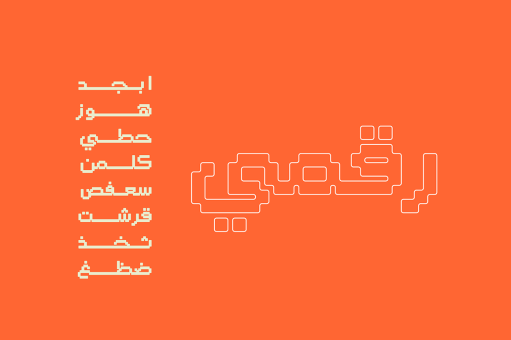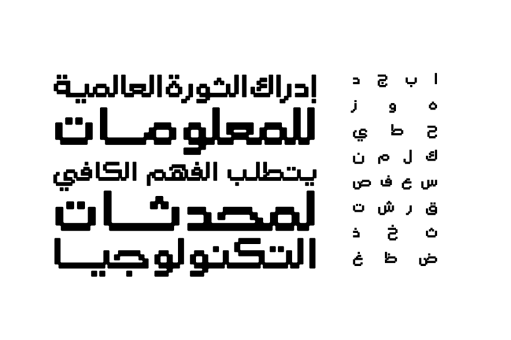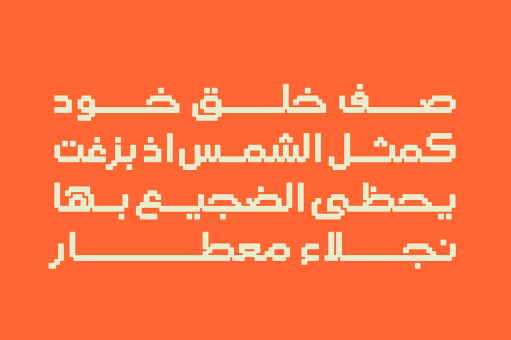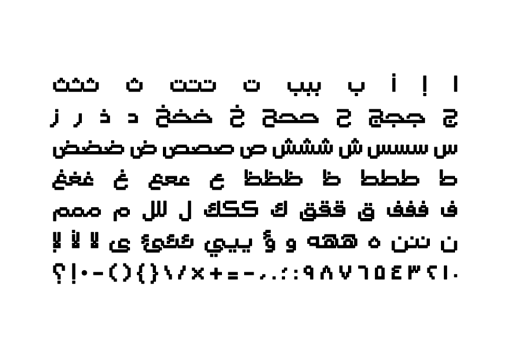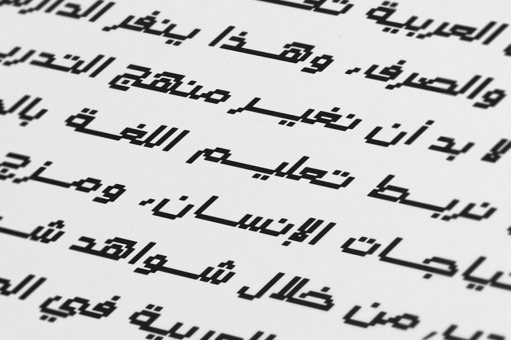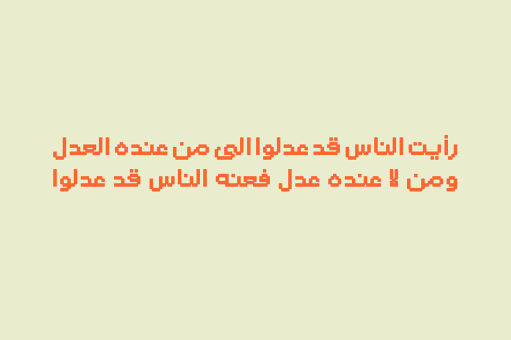
Raqami
The word Raqami is the Arabic for Digital. Raqami is an Arabic display font with a pixelated look. It suits modern projects including print advertising and web.